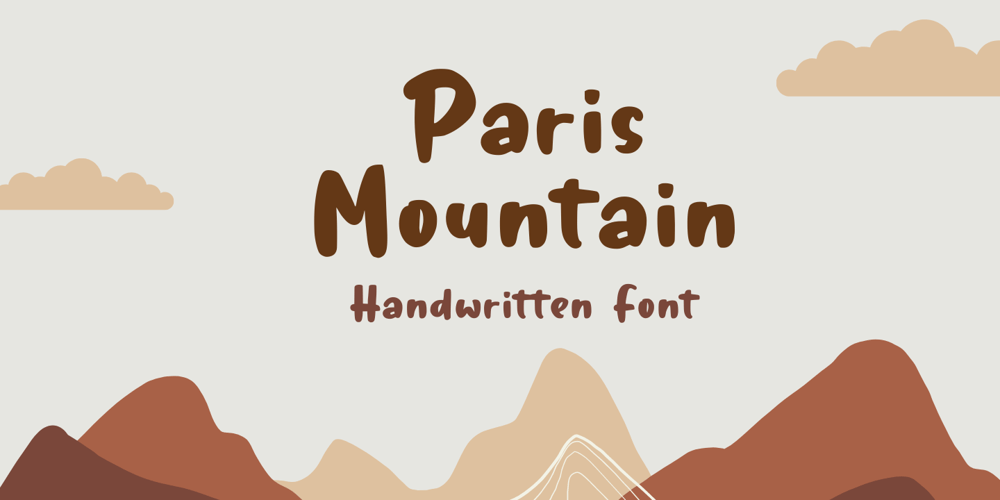
Paris Mountain Font Family was designed by Muhamad Yusron Billah and published by Sronstudio. Paris Mountain contains 1 styles and family package options. Paris Mountain – Handwritten Font, this font Is perfect for product packaging, product designs, label, photography, watermark, special events, or anything.